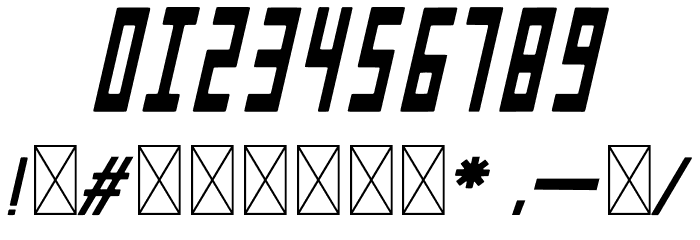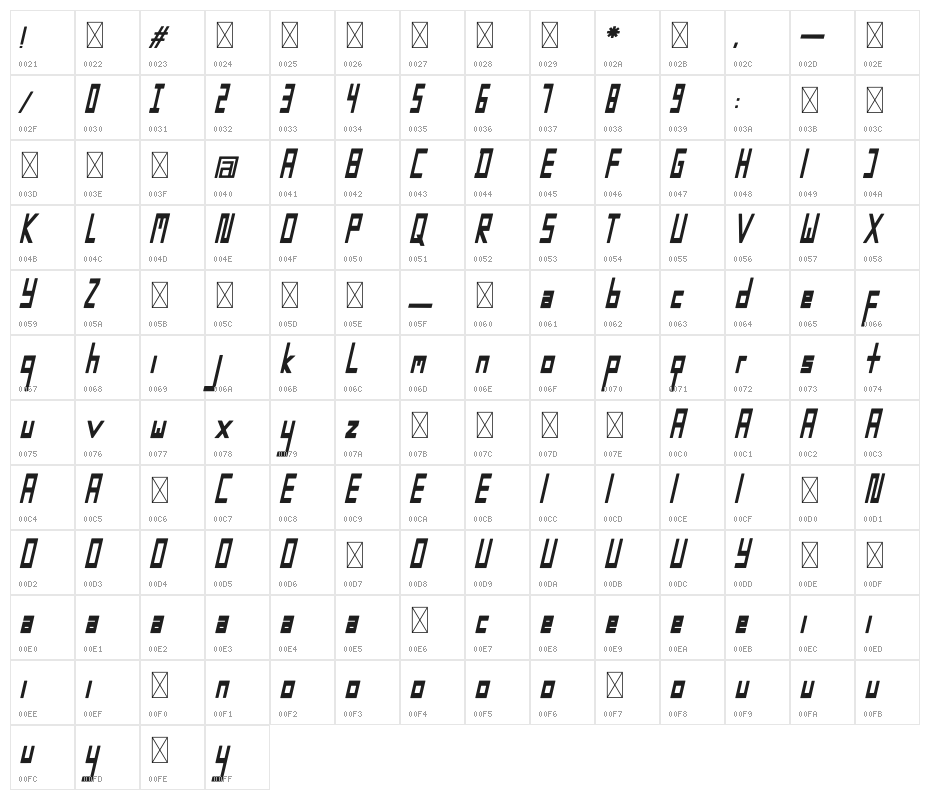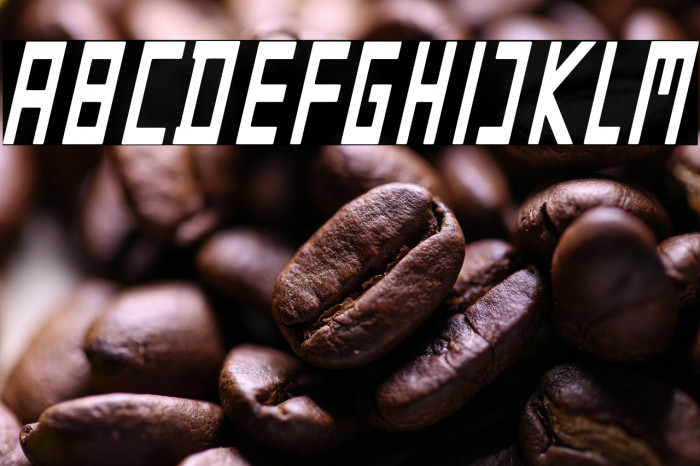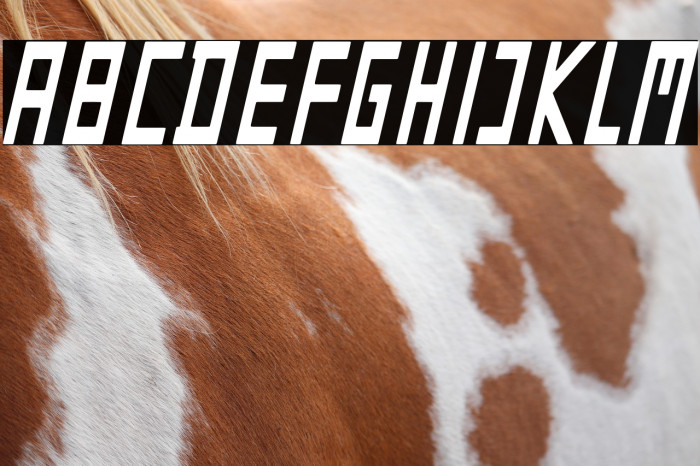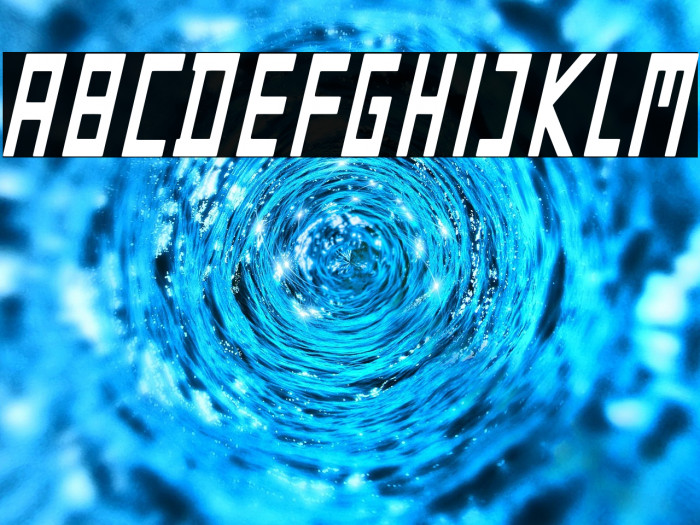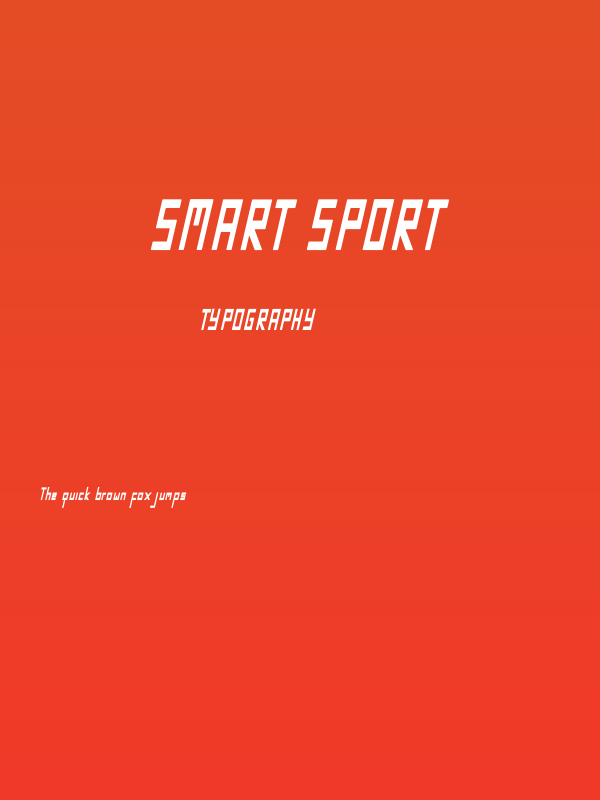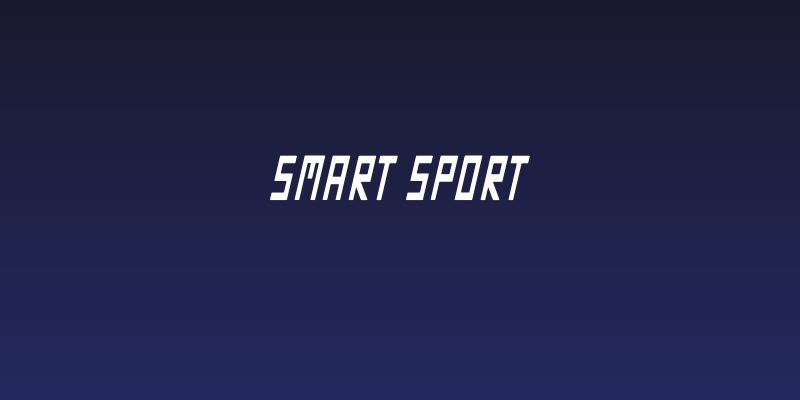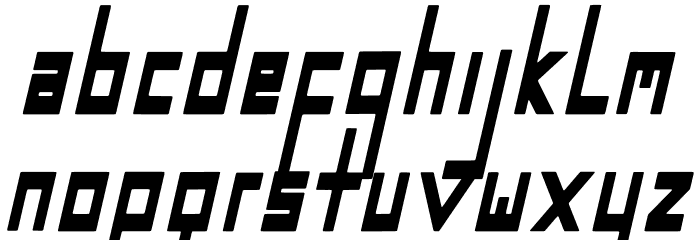
Smart Sport Font
Smart Sport Description
This font features a dynamic and angular design, characterized by its sharp edges and slanted orientation, giving it a sense of motion and energy. The uppercase letters are bold and commanding, with a geometric structure that emphasizes vertical and diagonal lines. The lowercase letters maintain the same angular style, providing a cohesive look across different text cases. Numbers are consistent with the letterforms, ensuring readability while maintaining the font's unique style. The special characters complement the overall design, making it suitable for a variety of creative applications.
| Proposed Projects | Ideal for sports branding, dynamic posters, and modern digital interfaces. |